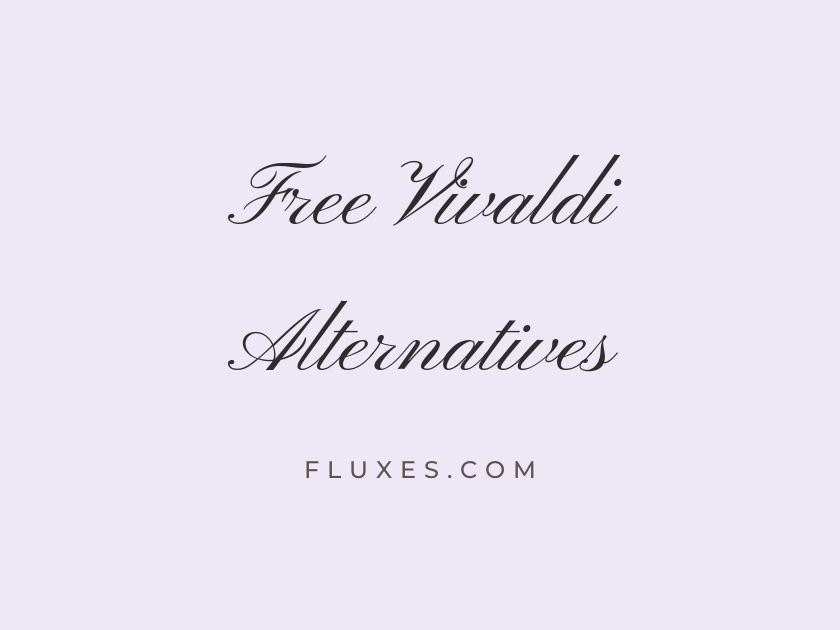
14 Best Free Fonts Alternatives to Vivaldi
Vivaldi has been a favorite for formal invitations and elegant branding since its release in the 1950s, prized for its dramatic swashes and old-world calligraphic rhythm. Because it is a licensed typeface, many designers look for free alternatives that capture the same romantic, hand-lettered flourish without the cost. Google Fonts has a strong roster of script typefaces that echo Vivaldi’s formal calligraphy, from tight connected scripts to looser brush-inspired letterforms, and picking the right one depends on how much ornamentation and legibility your project needs.
Requesting the honor of your presence
Pinyon Script is probably the closest match to Vivaldi’s spirit in the free font world. Its tall ascenders and looping descenders carry the same theatrical formality, making it a natural pick for wedding invitations, certificates, and monograms where a single elegant word needs to command attention.
Forever bound in love and grace
Smooth, continuous, and slightly more casual than Vivaldi, Great Vibes trades some of the stiff formality for warmth without losing its calligraphic pedigree. It reads beautifully at large display sizes but can lose clarity if set much smaller than headline scale.
Elegant script for timeless occasions
Alex Brush leans into brush calligraphy rather than pointed-pen formality, giving it a livelier stroke contrast than Vivaldi. Designers often reach for it when a project wants romance with a touch of movement, such as logotypes or packaging labels for boutique goods.
Two hearts joined as one
This one is compact and fluid, with letters that connect so smoothly the whole word feels like a single gesture. Allura suits short phrases best; long sentences can start to feel cramped since the joins are so tight.
An evening of celebration and style
Parisienne softens the formality of Vivaldi into something more relaxed and conversational, with rounder letterforms and less aggressive swashing. It pairs nicely with a clean serif body text for save-the-dates or boutique branding that wants charm over grandeur.
Cordially invited to a grand affair
Thin, delicate, and unmistakably vintage, Tangerine channels the same era of engraved stationery that made Vivaldi popular. It is a font that rewards generous letter spacing and larger sizes; set too small, its fine strokes tend to disappear.
With gratitude, we welcome you
Italianno has a slightly narrower, more upright stance than many scripts on this list, giving it a formal, almost architectural quality despite its flourish. It works well on certificates and formal signage where a script needs to feel dignified rather than playful.
Signed with warmth and sincerity
Loose and expressive, Mrs Saint Delafield feels like a personal signature rather than a printed script. It is a good choice when a brand wants the intimacy of handwriting alongside the ornamentation of a formal script, though its irregular baseline means it needs room to breathe.
A toast to new beginnings
Dense with connecting flourishes, Herr Von Muellerhoff pushes further into ornamentation than most alternatives here, closely mirroring Vivaldi’s most decorative moments. Save it for short, impactful lines like a name or a single word on an invitation suite.
Kindly reserve this date for us
As its name suggests, this typeface aims squarely at formal correspondence, with narrow, upright letters that feel restrained compared to looser scripts. It sits closer to engraving-style calligraphy than brush lettering, making it a solid substitute where Vivaldi was originally used on official documents.
Delighted to share this special day
Rouge Script balances legibility and ornament more evenly than most formal scripts, so it holds up at slightly smaller sizes than something like Tangerine. It has a friendly, contemporary polish that suits invitation suites wanting a touch less antique stiffness.
Joyfully announcing our engagement
WindSong offers a gentler, more contemporary take on calligraphic script, with softened swashes that feel current rather than archival. It is a dependable option for branding projects that want romance without veering into overly ornate territory.
Mrs Sheppards
With love, always and forever
Mrs Sheppards
Rounder and friendlier than Vivaldi’s sharp angles, Mrs Sheppards brings a storybook quality to formal script lettering. It works nicely for personal branding, place cards, and greeting card design where warmth matters as much as elegance.
Kristi
A signature touch of tradition
Kristi
Kristi is thin, quick, and slightly irregular, evoking a fountain-pen signature rather than a printed formal script. It makes an effective accent typeface for a logotype or monogram when paired with a sturdier serif for supporting text.
Formal scripts like these read best in short bursts. Reserve them for names, headlines, or a single evocative line rather than paragraphs of body copy.
Always test scripts at the actual size they will be printed or displayed. Many of these fonts lose their delicate strokes when scaled down for body text or mobile screens.
Any of these free Google Fonts options can stand in for Vivaldi depending on how much flourish, formality, or warmth your project calls for. Downloading a few and testing them directly in your layout is the fastest way to find the one that captures the mood you are after.